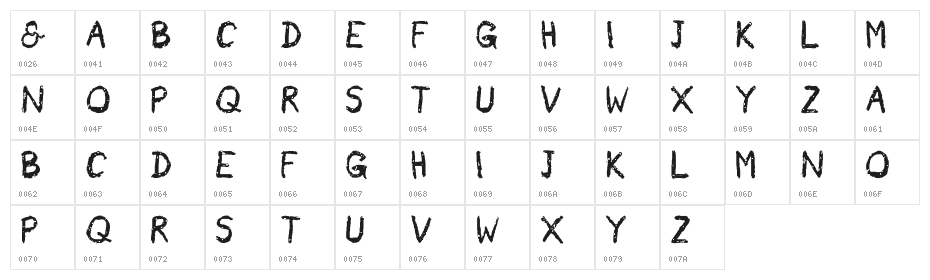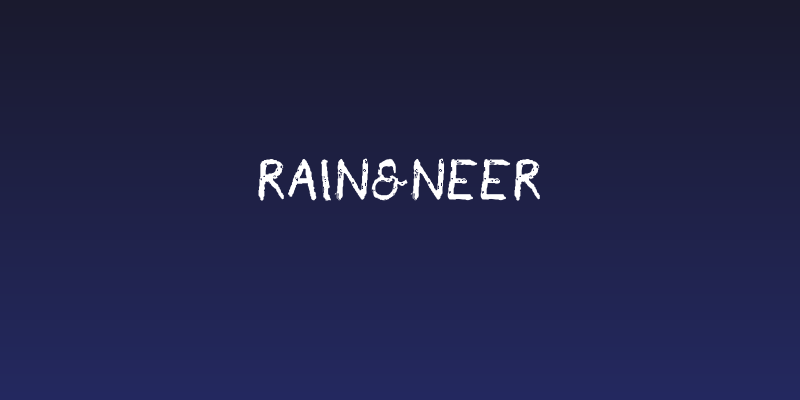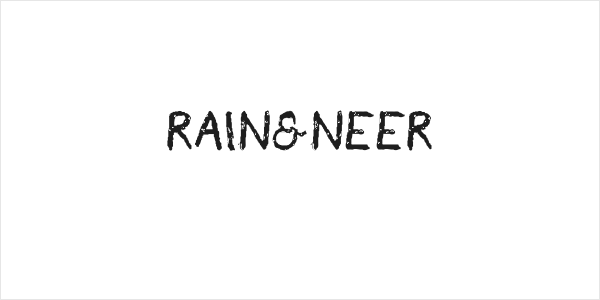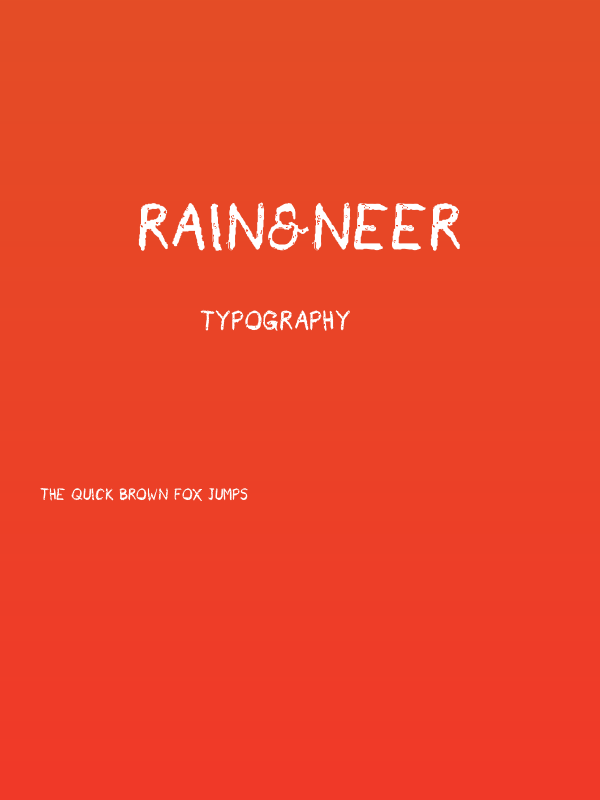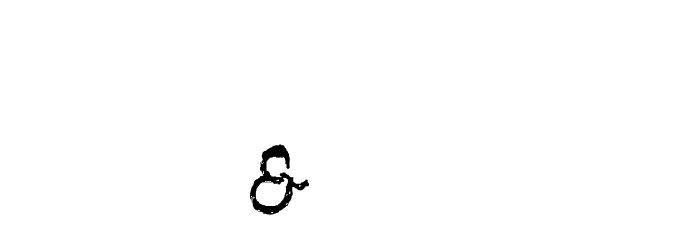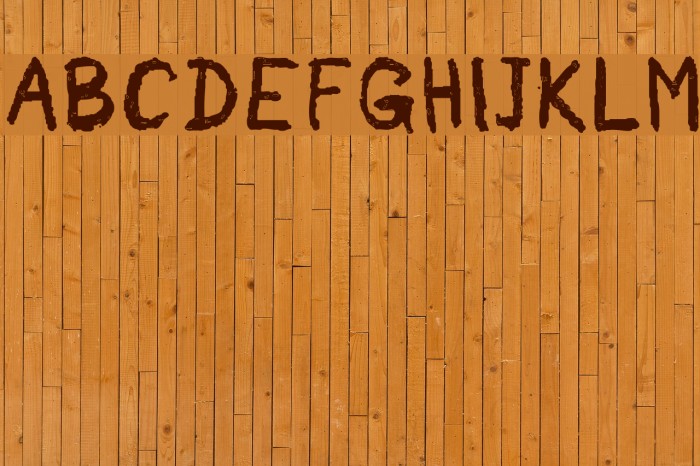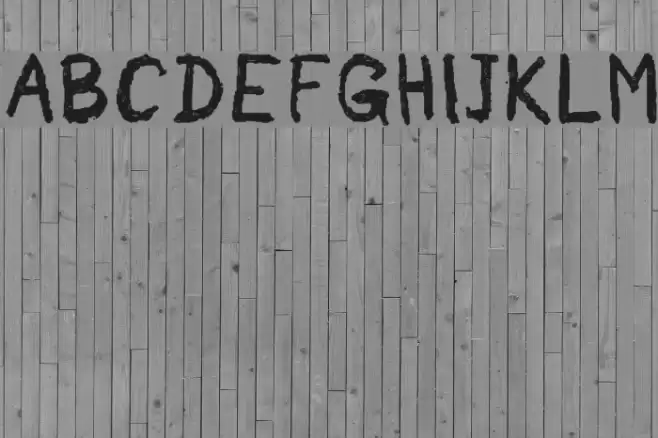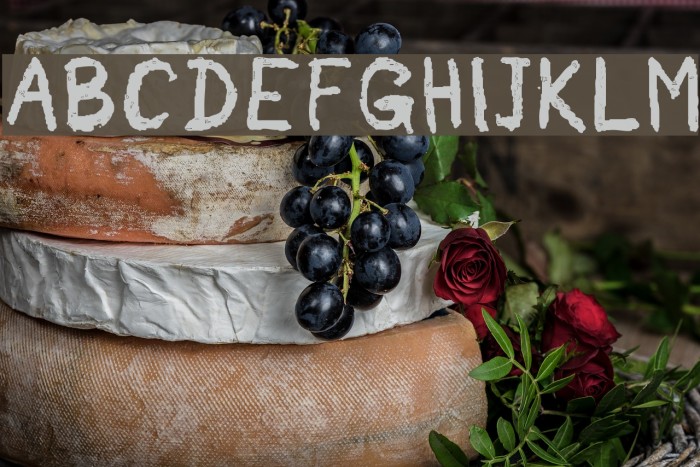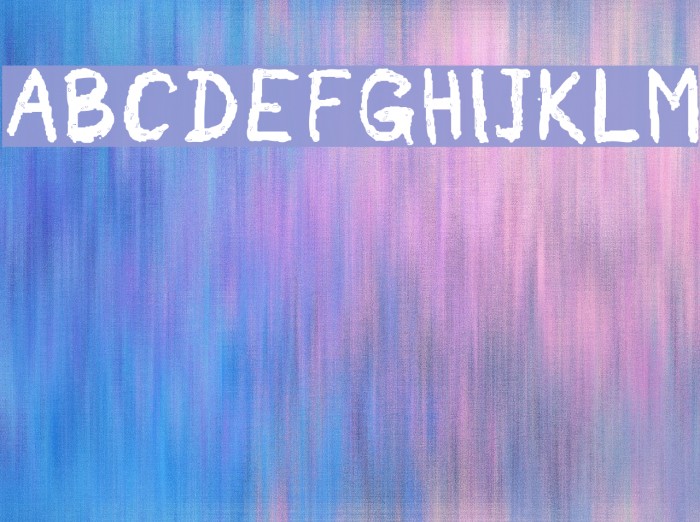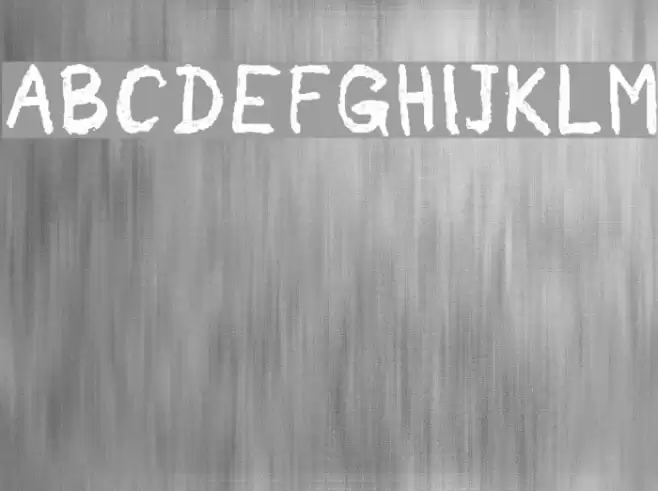
Rain&Neer Font
Rain&Neer Description
This font features a rugged, hand-drawn style that evokes a sense of raw authenticity and artistic flair. The characters are unevenly textured, giving them a distressed and weathered appearance, reminiscent of ink or paint applied with a brush. The uppercase letters are bold and prominent, while the lowercase letters maintain a consistent style, ensuring readability despite their artistic nature. The font's unique texture and organic feel make it ideal for projects that require a touch of creativity and individuality. The ampersand symbol is particularly distinctive, with its swirling, almost calligraphic design, adding to the font's overall charm.
| Overall Style | Artistic, Rustic |
| Use Case | Headlines, Logos, Creative Designs |
| Proposed Projects | Ideal for artistic projects, branding, posters, and any design requiring a creative, handmade touch. |